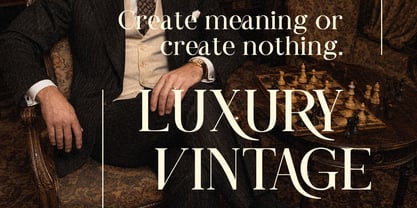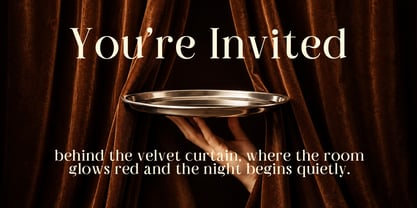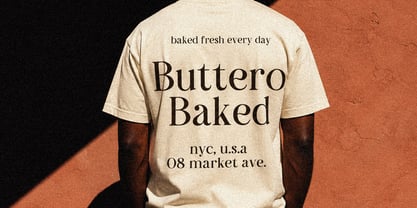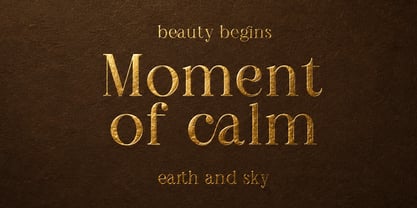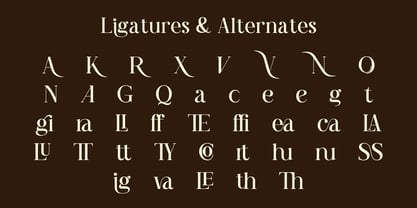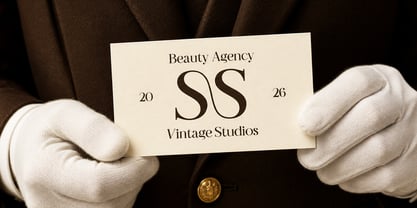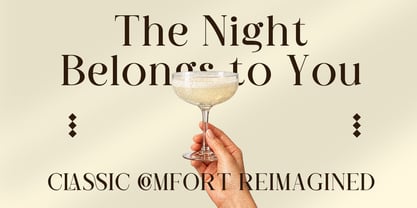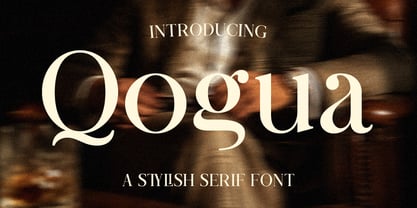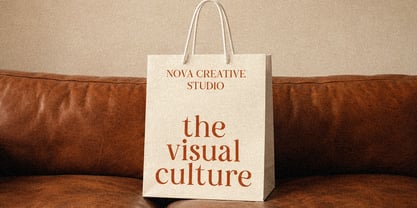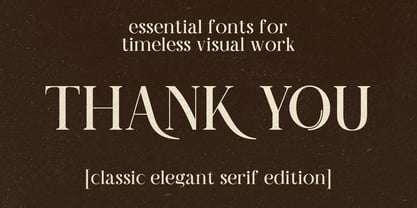
Qogua
by RahagitaType
The Qogua Font Family was designed by Setiadi Rahagita and published by RahagitaType. Qogua contains 1 styles. More about this family
Qogua is a stylish, high-contrast serif display typeface that embodies quiet luxury and timeless sophistication. With its graceful letterforms, dramatic thick-to-thin stroke transitions, and a rich set of ligatures and alternates, Qogua brings an unmistakable sense of refinement to any design it touches. Whether rendered in gold foil on premium stationery or set large across a fashion editorial, this typeface communicates class without effort.
Designed for brands that understand that restraint is a form of power, Qogua moves seamlessly between bold headline display and refined body text — always maintaining its signature elegance and presence.